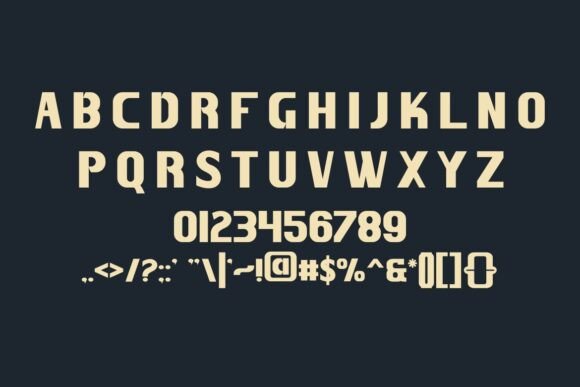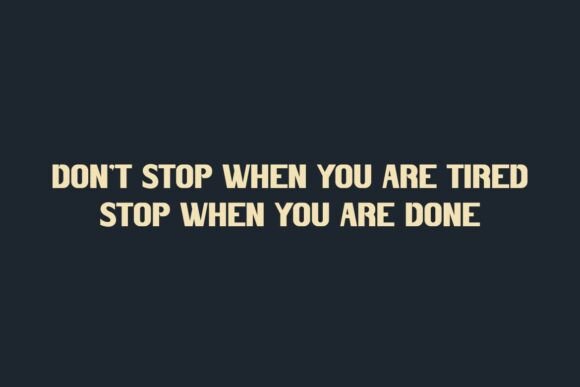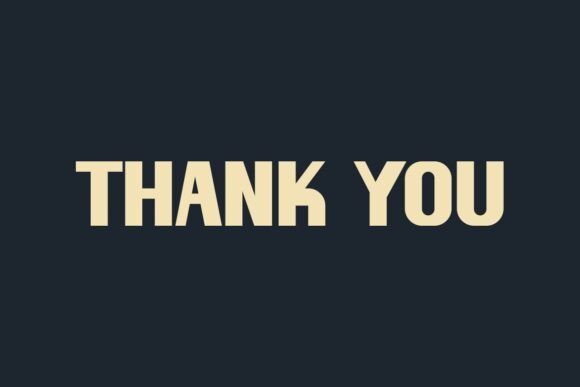
Introduction to Qickbar Font
* Qickbar Font is a modern and authentic font.
* * Perfect for both professional and branding needs of a product * * This font is suitable for any branding project like quotes, logo, blog header, poster, banding, letter, invitation, stationery, * * etc… Designed as a versatile and flexible that can be used on a range of projects and mediums.
Key Features of Qickbar Font
Why Choose Qickbar Font?
Qickbar Font offers exceptional quality and versatility, making it a valuable addition to your design toolkit. Whether you’re creating for personal projects or commercial use, Qickbar Font delivers professional results.